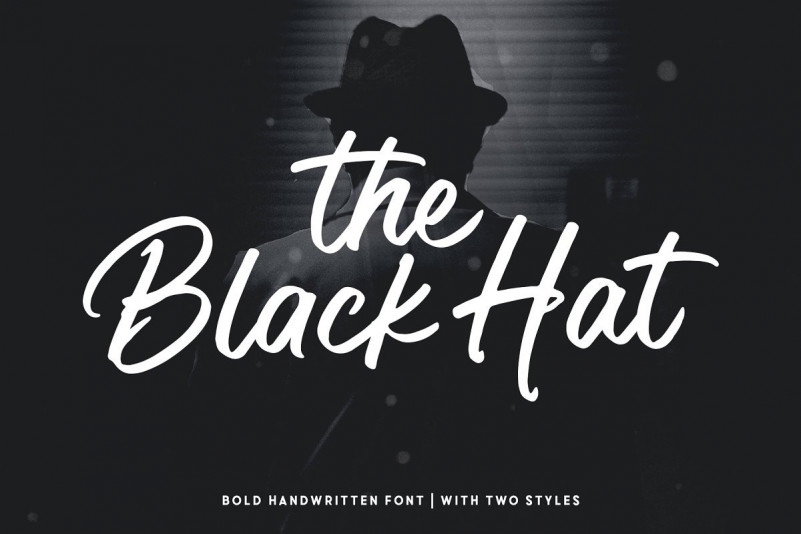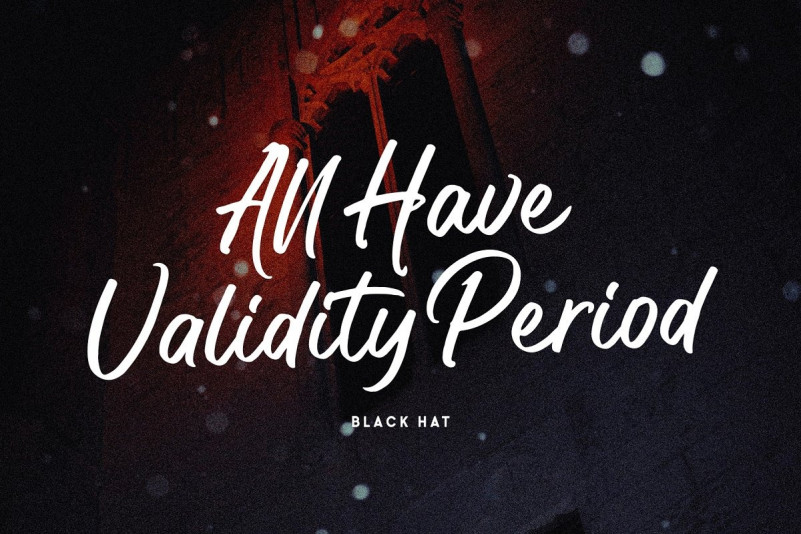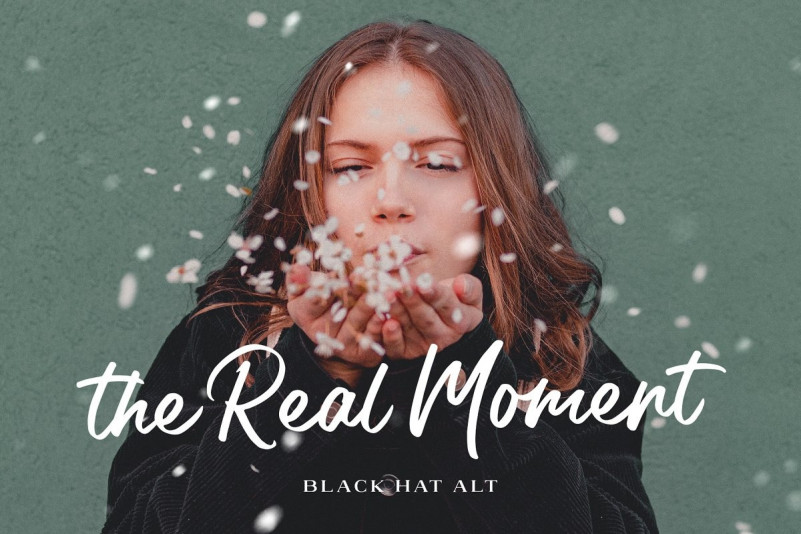
Black Hat Font
Black Hat is a bold handwritten font. Inspired by a round black hat. Written with a brush pen with fast movements. Comes with two fonts, makes it easy to choose a font that suits the project being worked on. Suitable for branding, advertising, headlines, packaging design, and more.